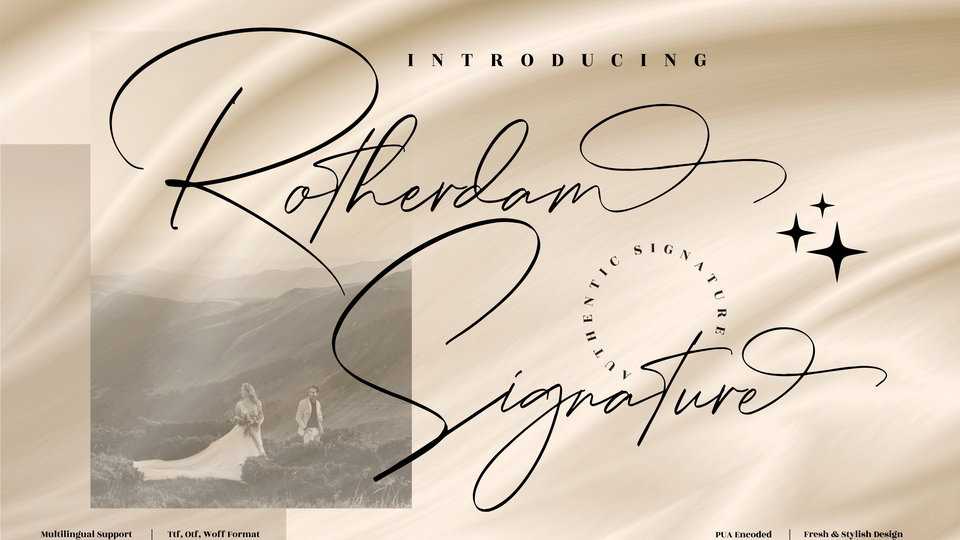
Download Rotherdam Signature font, a beautiful light handwritten typeface with a unique feel and a stunning impact. It will add a luxury spark to any design project that you wish to create.
Designer: Perspectype Studio